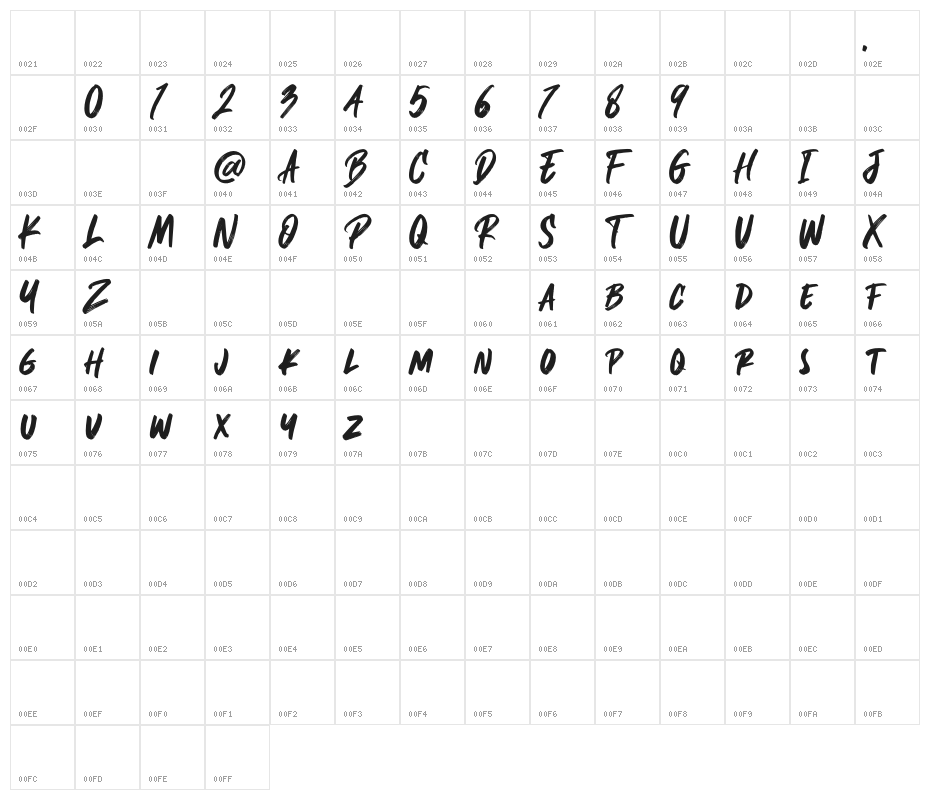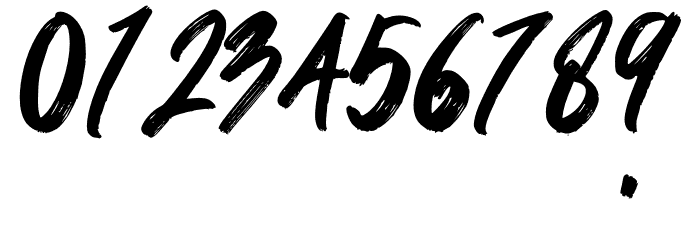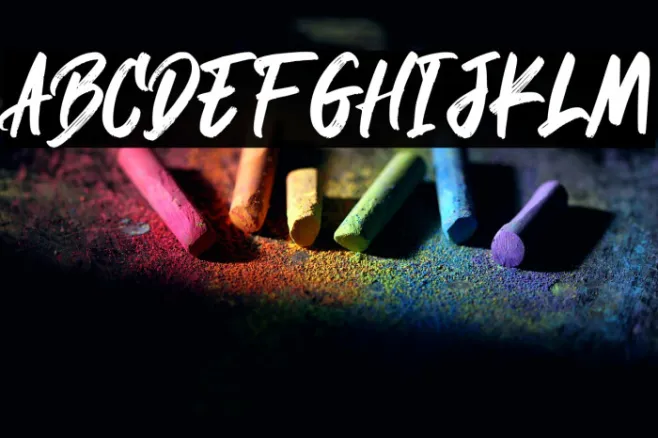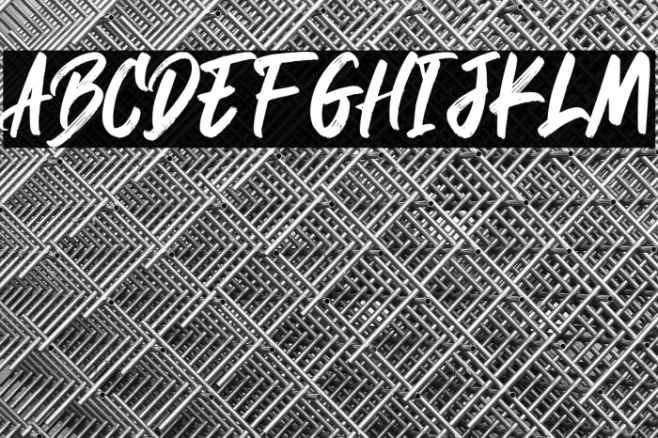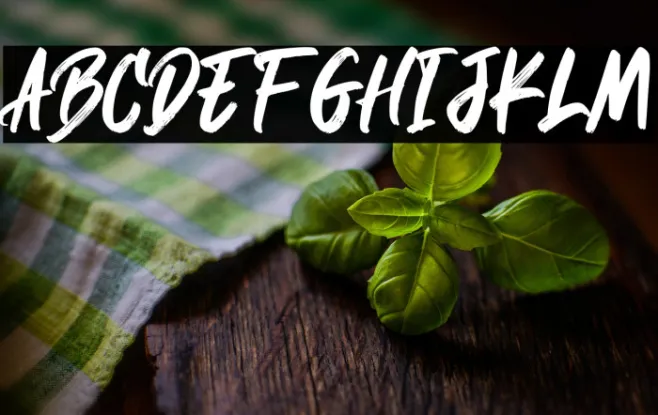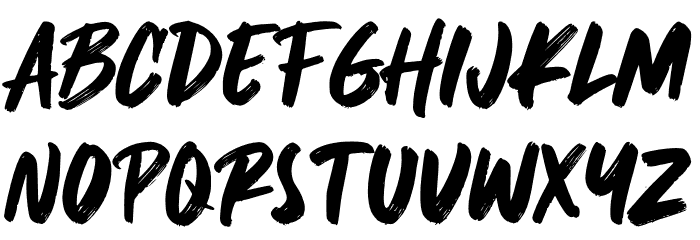
Blockade Font
Blockade Description
This font features a bold, brush-style script that exudes energy and dynamism. The strokes are thick and expressive, with a hand-painted appearance that adds a personal touch to any design. The letters are slightly slanted, enhancing the sense of movement and flow. The uppercase and lowercase characters maintain a consistent style, with rounded edges and varying stroke widths that create a lively texture. The numbers and special characters are equally bold and expressive, ensuring a cohesive look across all text elements.